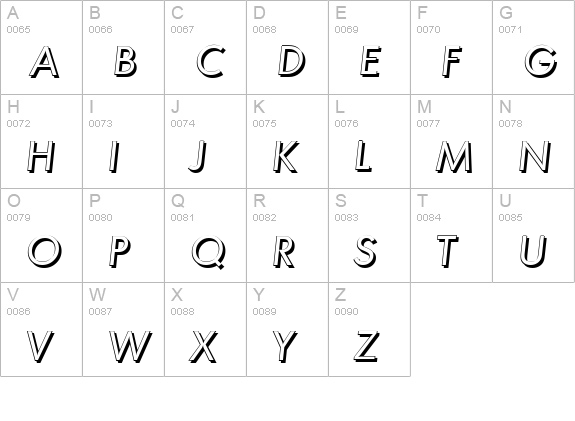
MontrealShadow-Italic Font Details
MontrealShadow-Italic is a distinctive, italic variant in the MontrealShadow typeface family \xE2\x80\x94 well suited to design and typography projects.
MontrealShadow-Italic font offers a sleek and modern look with its elegant italic style. Its design strikes the perfect balance between sophistication and creativity, making it a versatile choice for various design projects. Whether used for headings, titles, or body text, MontrealShadow-Italic adds a touch of class and uniqueness to any piece of work. This beautiful font is not only visually appealing but also easy to read, making it a practical choice for both print and digital designs. Its distinctive shadow effect adds depth and dimension, creating a visually striking impact. MontrealShadow-Italic is ideal for projects that require a touch of drama and flair. The best part? MontrealShadow-Italic is available for free download at FontsMarket.com, allowing designers and creatives to access this stunning font without any cost. So why wait? Elevate your designs with MontrealShadow-Italic and make a lasting impression today!